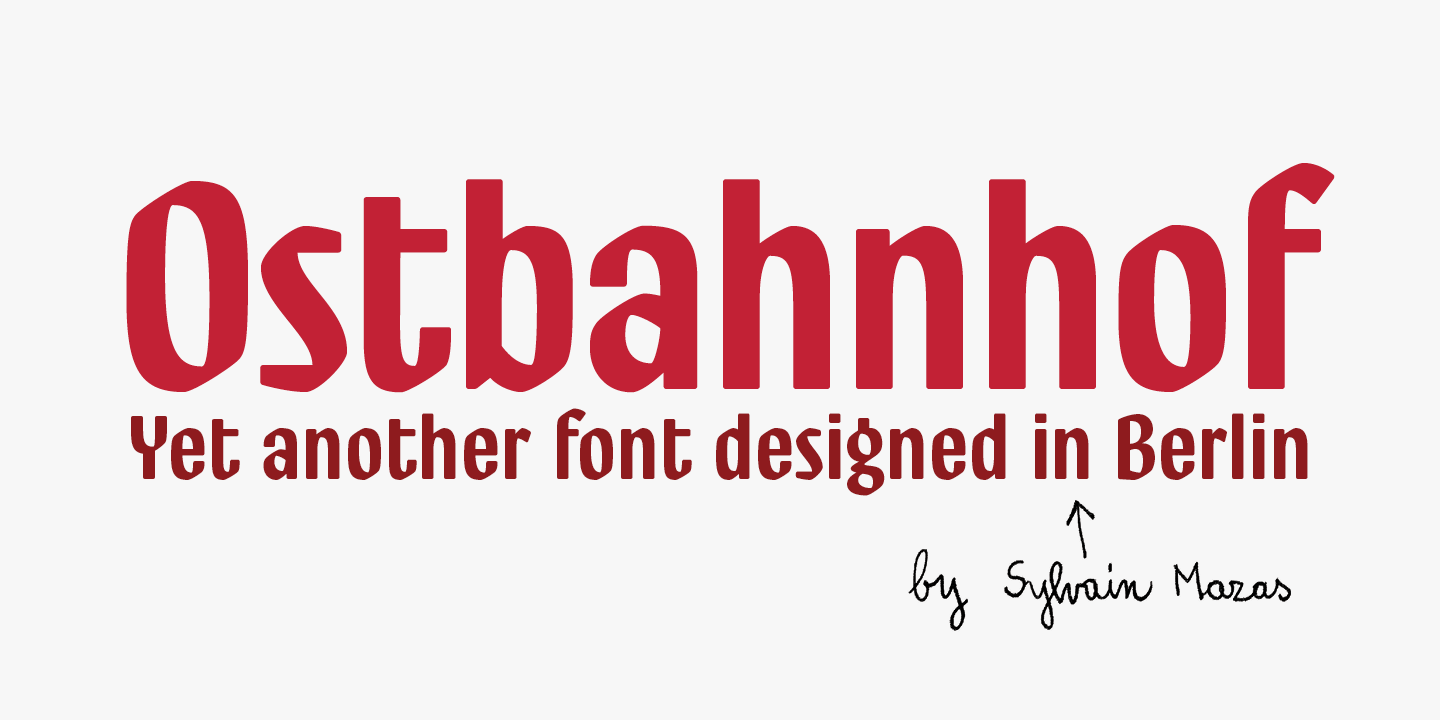
Ostbahnhof Font is ideal for transportation branding, railway system signage, German cultural projects, industrial design materials, urban planning documentation, architectural firm identity, infrastructure communications, Berlin-themed campaigns, European travel guides, and systematic applications that require Germanic precision and efficient communication clarity.
What makes Ostbahnhof Font truly exciting is its authentic capture of German industrial heritage and transportation efficiency that embodies the precision and reliability of European railway systems. This exceptional typeface combines Germanic design principles with modern functionality, featuring systematic letterforms and engineered proportions that convey both historical authenticity and contemporary efficiency. The font's industrial character and systematic precision make it perfect for projects that need to communicate reliability, efficiency, and the methodical excellence of German engineering and design tradition.
The Ostbahnhof Font family includes multiple weights and styles: Light, Regular, Medium, Bold, and Condensed variations designed for optimal systematic communication. Each family member maintains the distinctive Germanic character while offering flexibility for diverse transportation applications and industrial branding systems. The comprehensive character set supports European languages and technical design elements, making it suitable for international infrastructure communications.